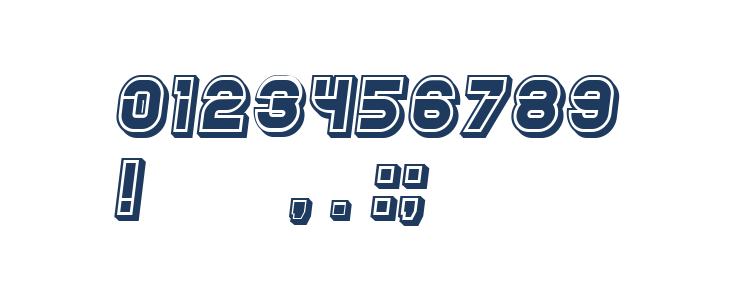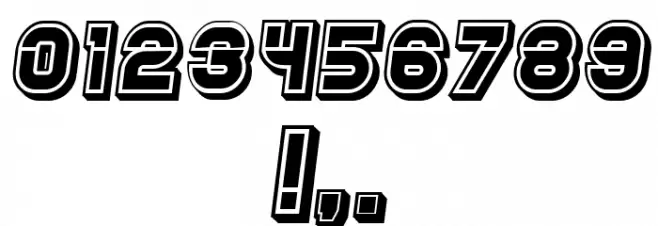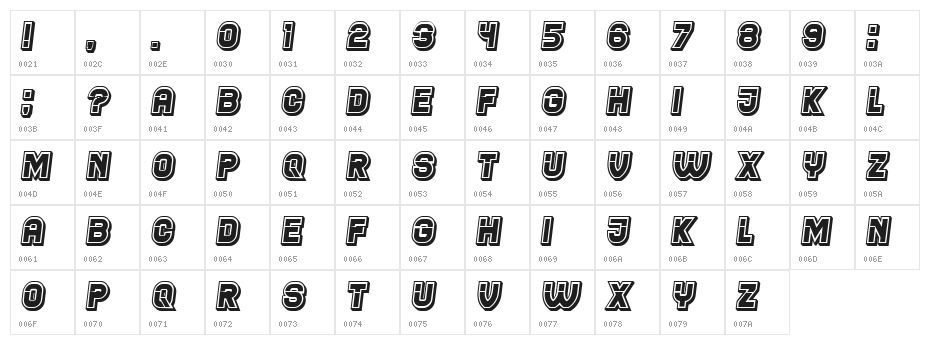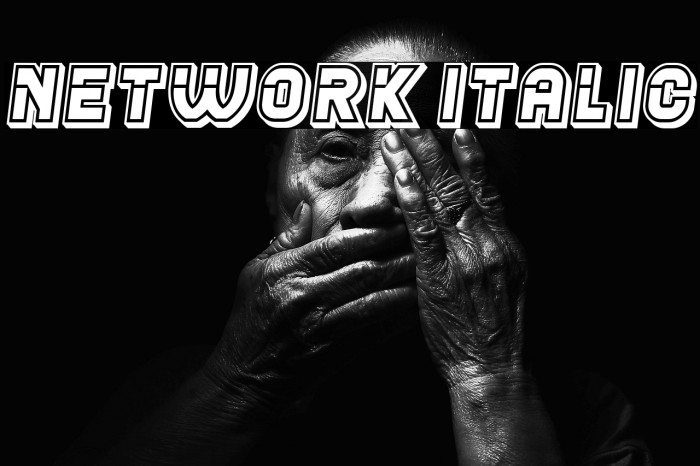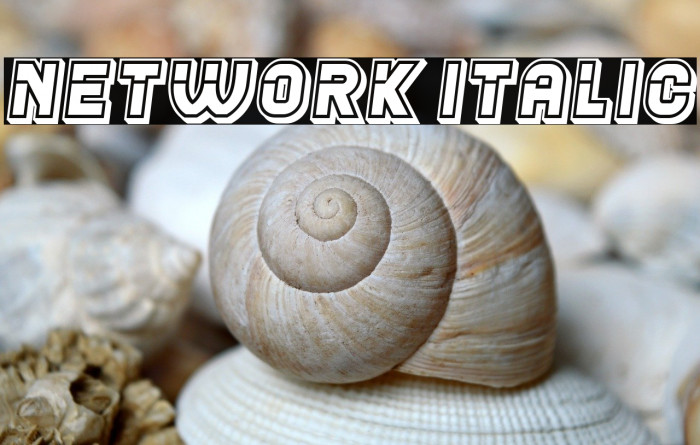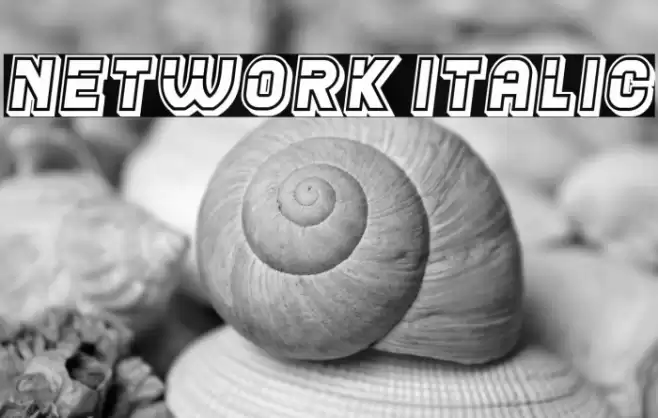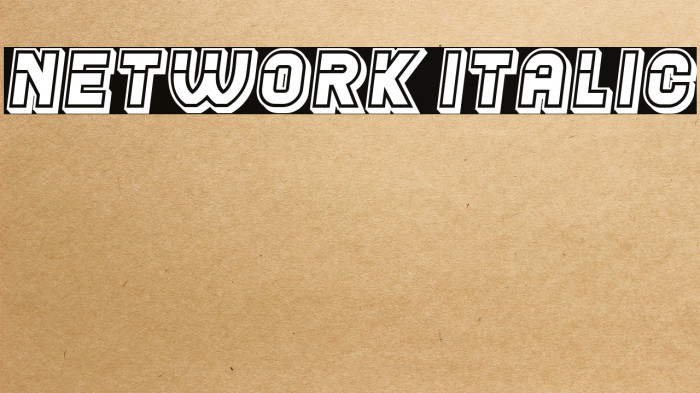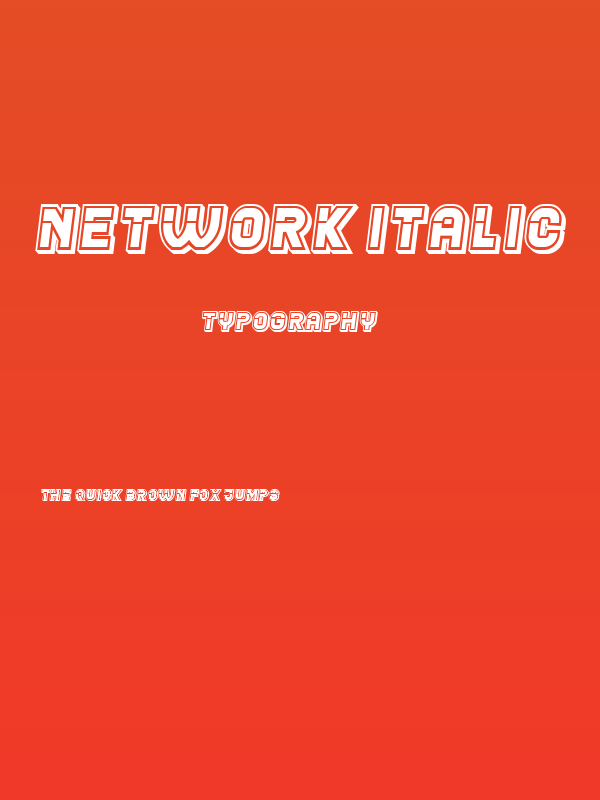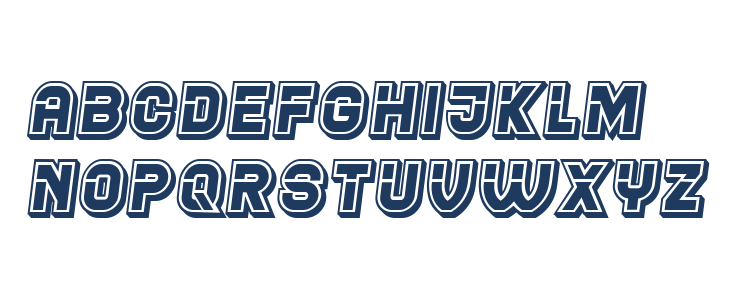
Network Italic Font
Network Italic Description
This font features a bold, geometric design with a distinct three-dimensional effect. Each character is outlined with a thick black border, creating a striking contrast against the white interior. The letters are uppercase and have a consistent width, giving them a uniform appearance. The style is modern and dynamic, with a slight italic slant that adds a sense of motion and energy. The numbers and special characters follow the same design principles, ensuring a cohesive look across all glyphs. This font is ideal for projects that require a bold and impactful visual statement.
| Proposed Projects | Ideal for sports branding, posters, headlines, and dynamic graphic designs. |